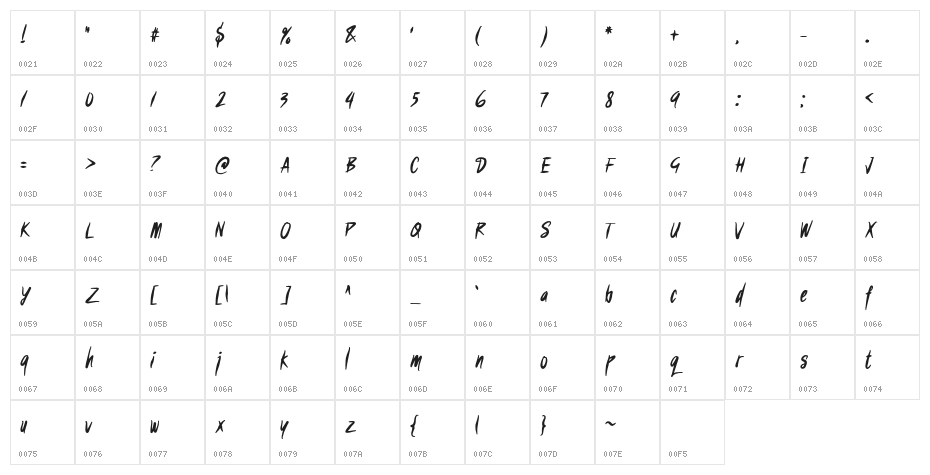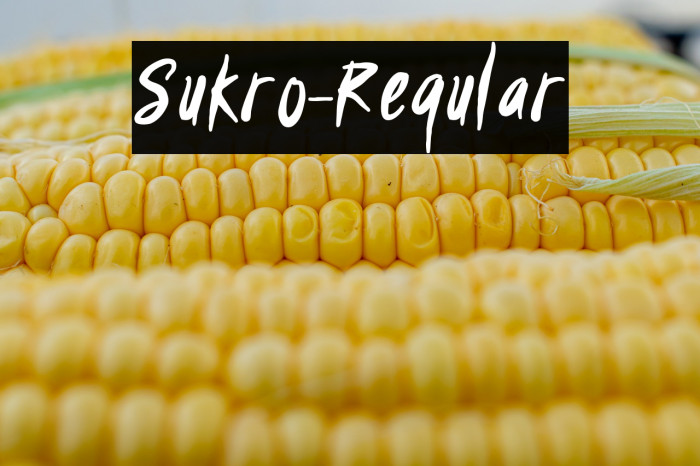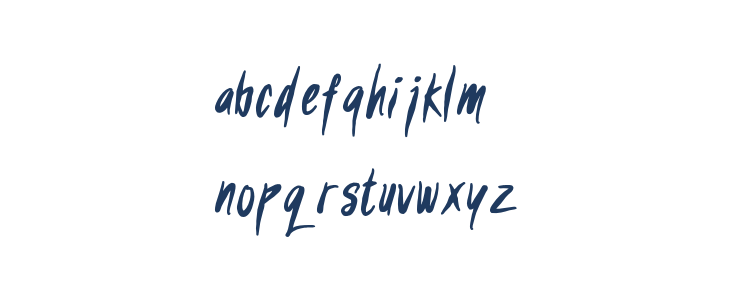
Sukro-Regular Font
Sukro-Regular Description
This font features a dynamic and expressive handwritten style, characterized by its fluid strokes and slight slant, giving it a lively and personal touch. The uppercase letters are bold and slightly angular, while the lowercase letters maintain a consistent flow, enhancing readability. The numerals are distinct and well-proportioned, matching the overall aesthetic. Special characters are creatively integrated, maintaining the font's energetic feel. This font exudes a sense of spontaneity and creativity, making it suitable for projects that require a personal or artistic touch.